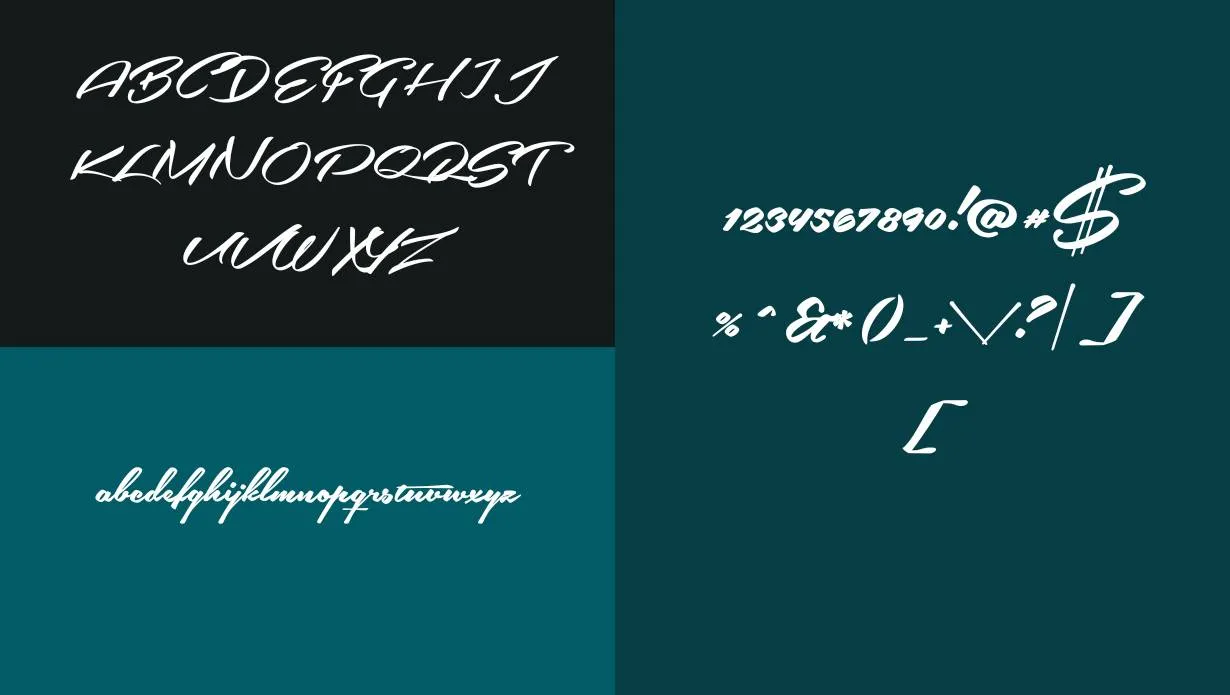
Here we talk about another script typeface that looks clear like sans-serif fonts. It was designed by Mans Greback in 2013. You can use it for making many attractive designs like printing wedding cards, mugs, photographic albums, and much more. It supports file formats TTF and OTF you can use it on PC, MAC, and Linux as well.
| Name | Southern Aire Font |
| Designer | Mans Greback |
It contains 394 characters,367 glyphs, and 1000 units per Em. The weight of this font is bold and its width is expanded. The writing style followed by this font is Italic.